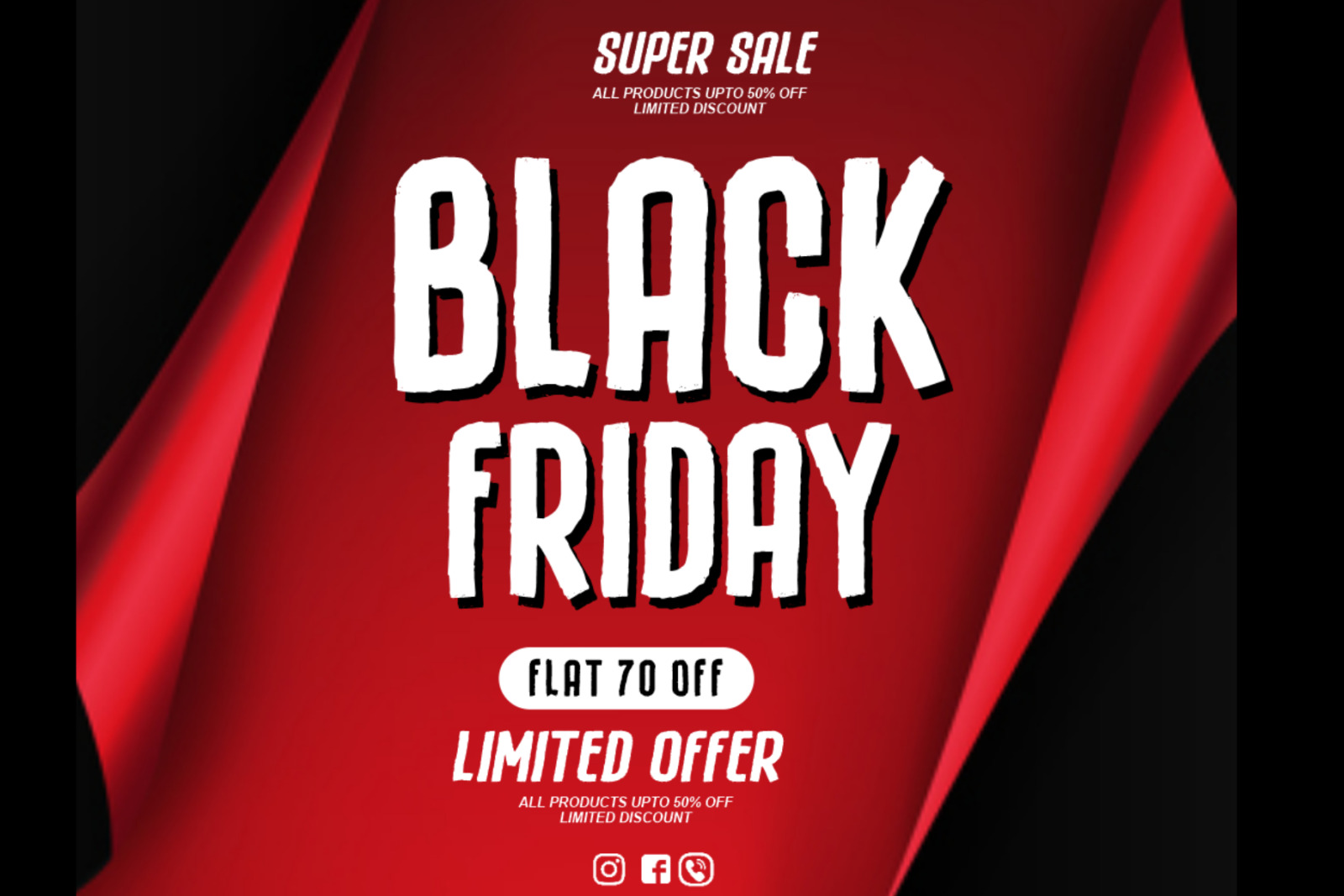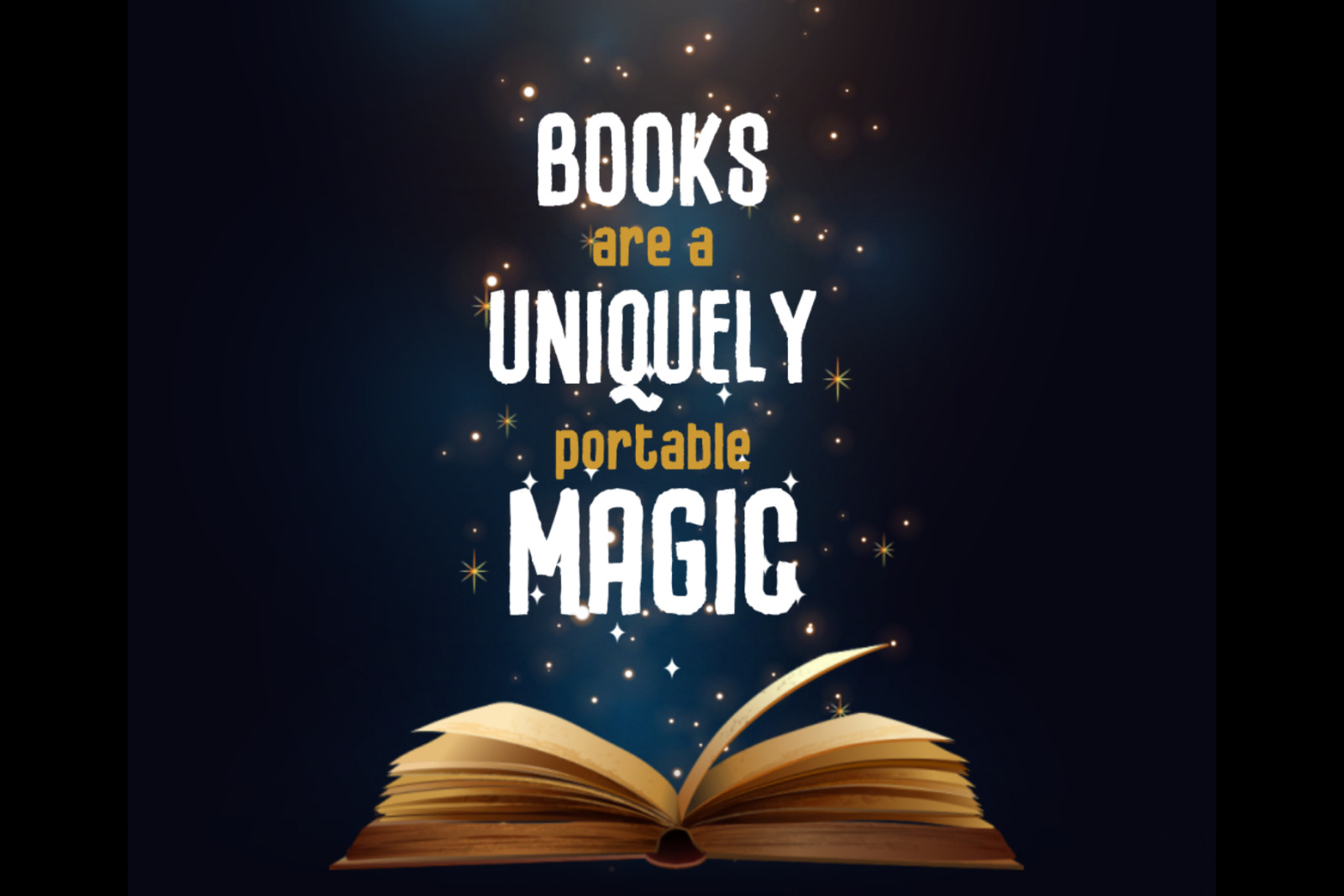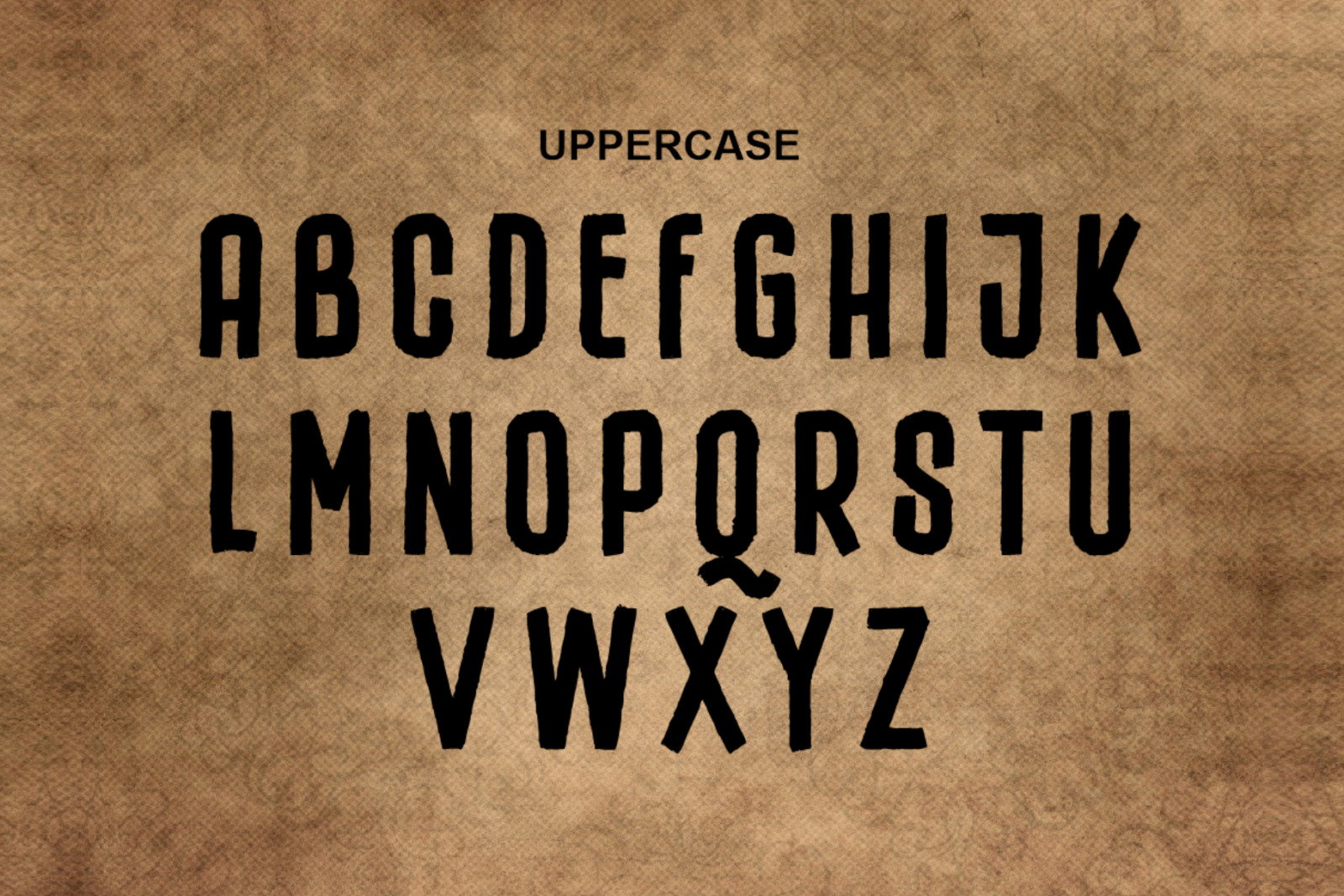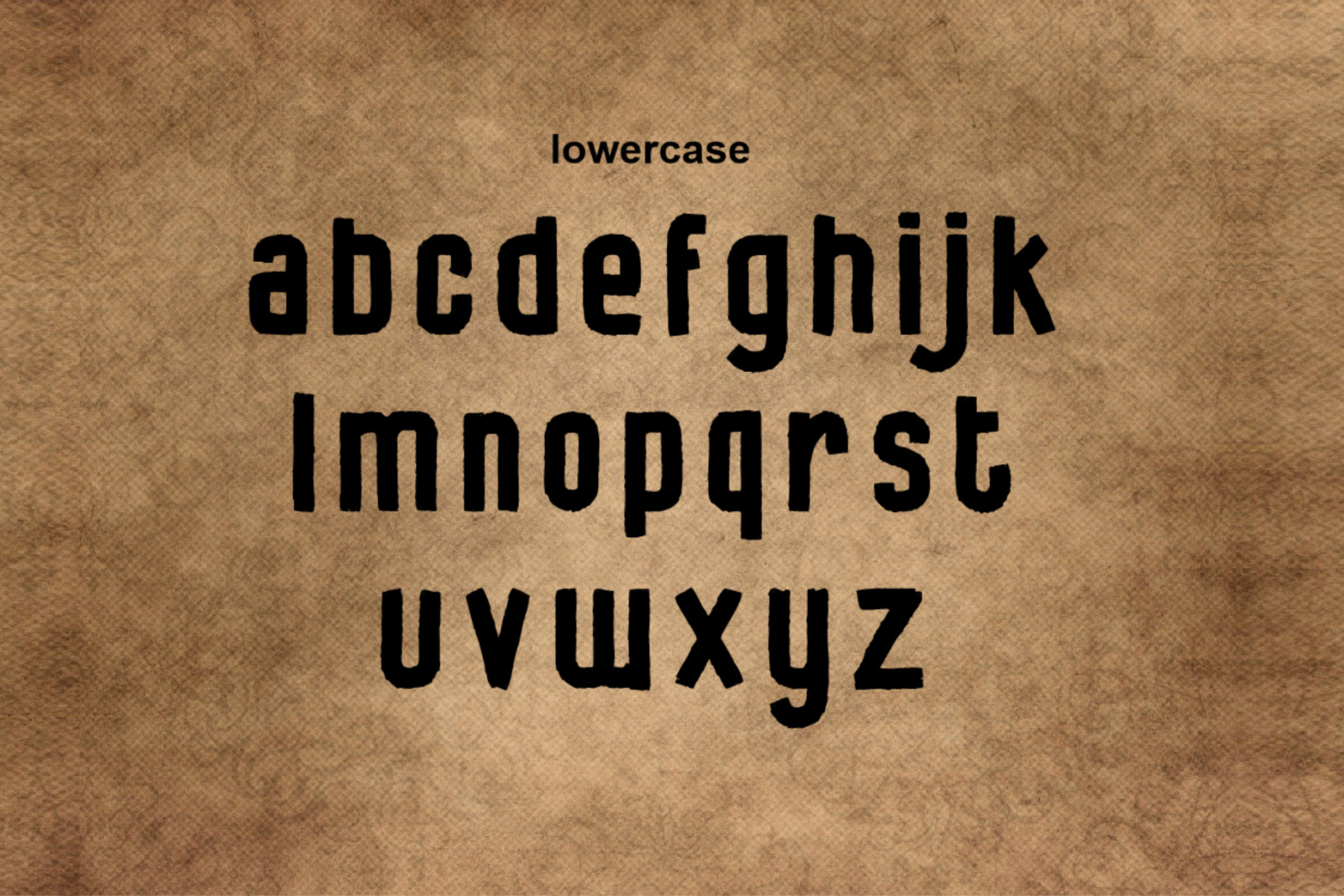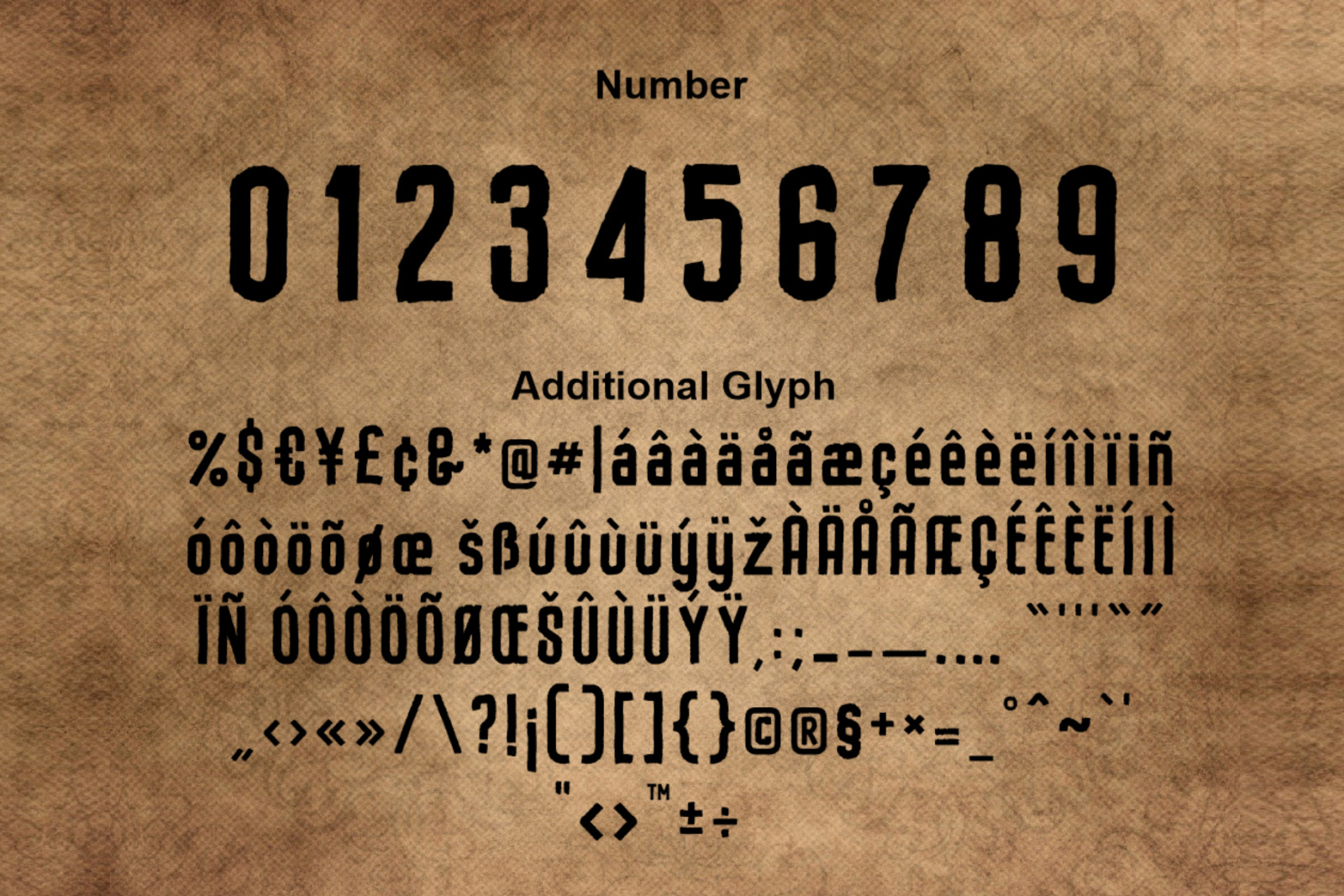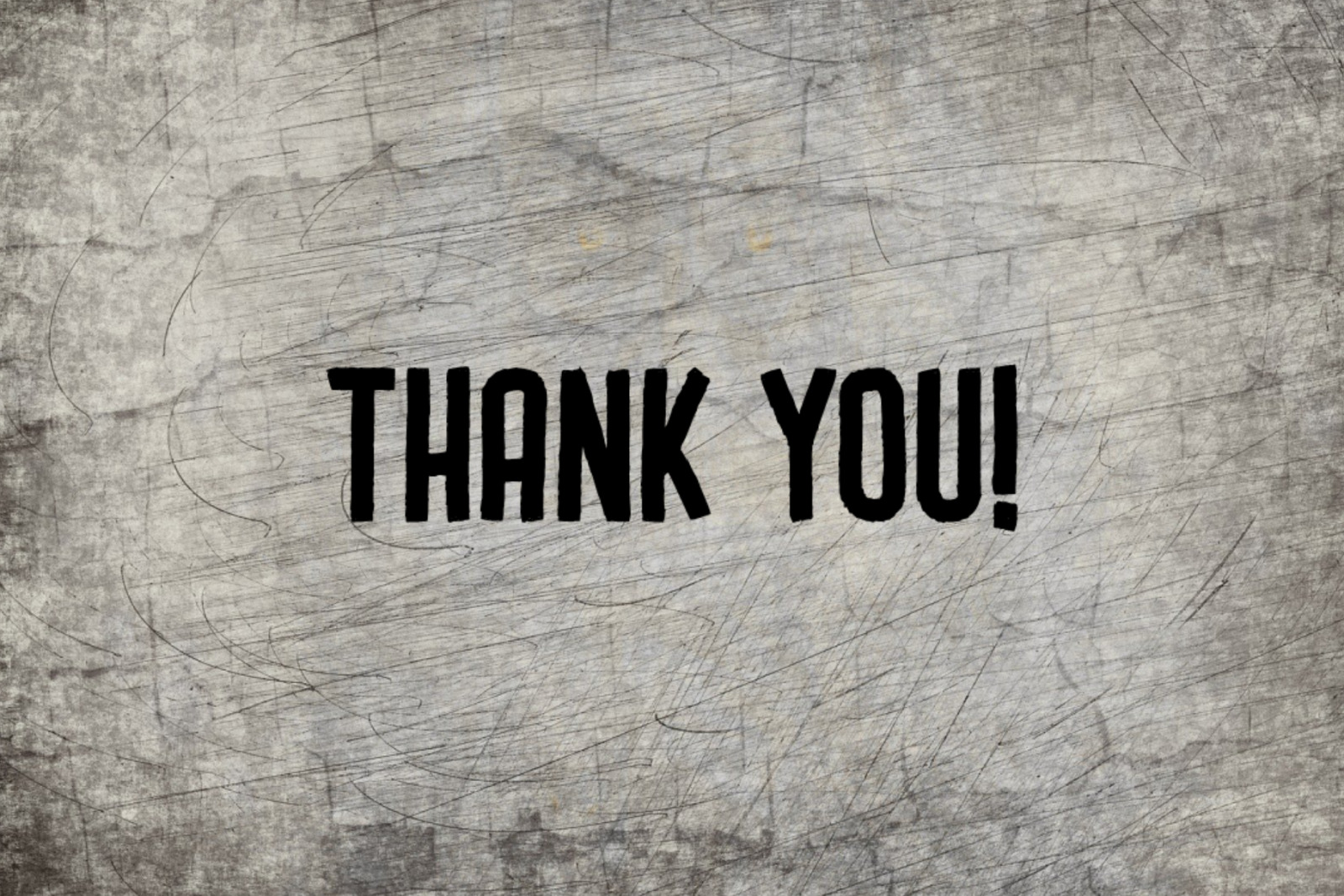
Arvizu Font
Arvizu is a grunge fonts are typefaces intended to have dirty look, they are known as filthy fonts and are bold, and they can either be casual or formal in appearance. Arvizu font is a grungy font with white patches in the letters. It is perfect for your design needs and it was created by Almaz Studio. It features uppercase letters and supports both standard and alternate characters. This beautiful font can be used for text headlines and advertisement purposes amongst others.